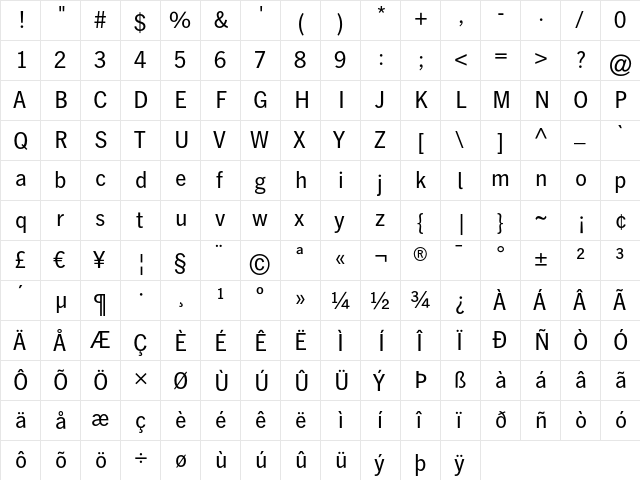
HeidelbergGothicTab Regular
Design Context for HeidelbergGothicTab Typeface
HeidelbergGothicTab takes a clean, functional approach — its unadorned letterforms prioritise legibility and work reliably across screen and print environments.
Font Pairing: Works well alongside a characterful serif or display font that can carry the expressive load while HeidelbergGothicTab handles the functional copy.
Pro Tip: Pair HeidelbergGothicTab with a display or serif font for headlines — its neutral character makes it an excellent supporting player in complex typographic systems.